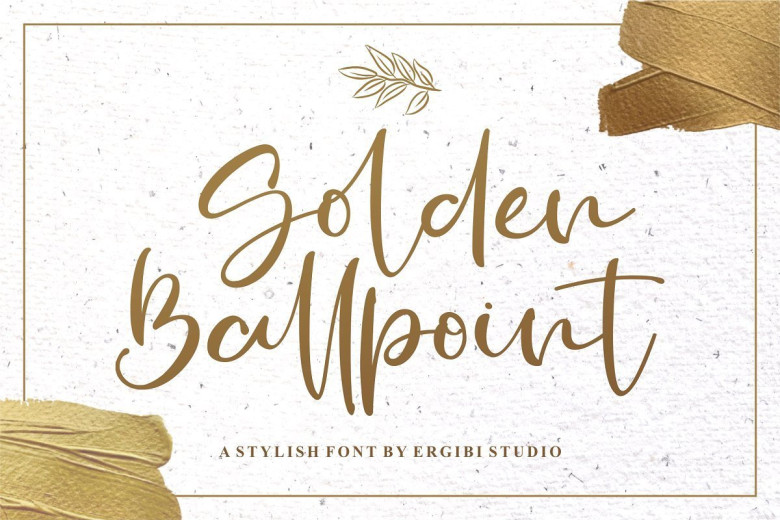
Golden Ballpoint Handwritten Script Font
Golden Ballpoint a stylish handwritten script font with 2 regular and italic styles. Inspired by elegant and branded stuffs make this font look classy and awesome in many ways to your latest project.
Golden Ballpoint is font is perfect for projects that look elegant like logos, wedding designs, branding, social media posts, advertisements, product packaging, product designs, labels, photography , watermarks, invitations, stationery and any project that requires handwriting tastes.